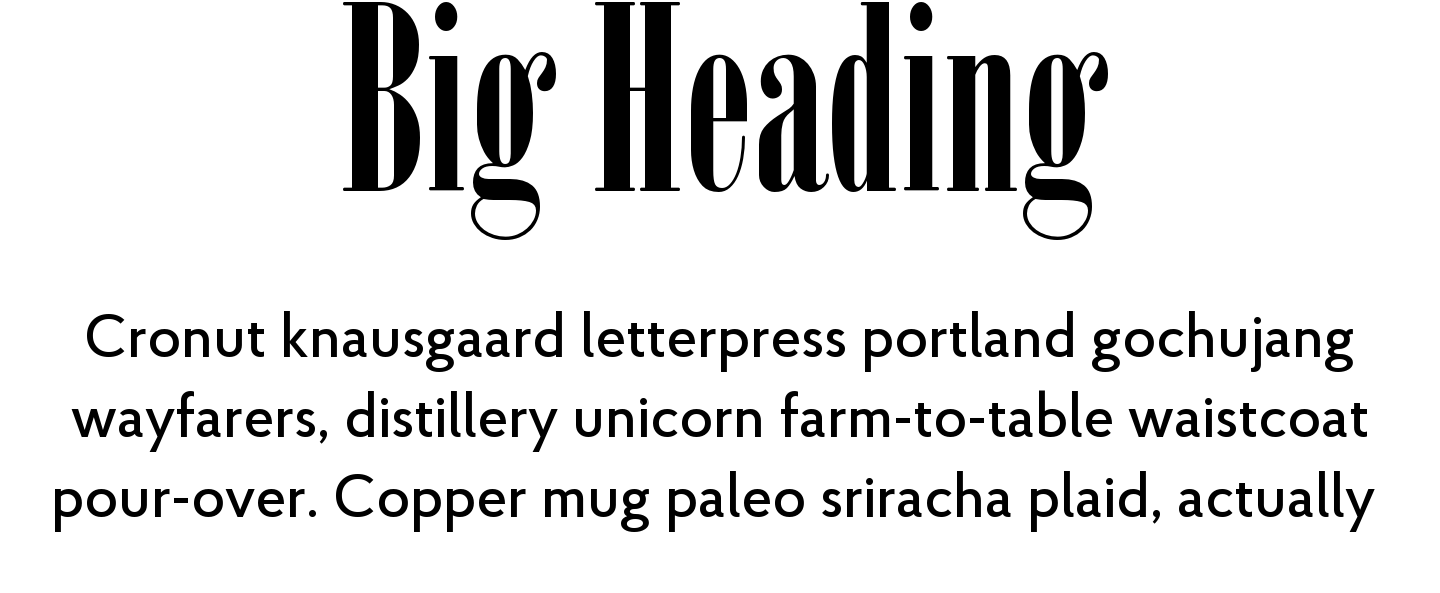
Introducing The Latest Serif Fonts For 2023
The Serif Font Revolution
2023 is expected to be a banner year for serif fonts. Designers of all kinds are embracing the new serif font options available, and it is no surprise why. The crisp lines, classical elegance, and versatility of serif fonts make them an ideal choice for a variety of projects.
One of the main advantages of using serif fonts is that they are easy to read. Whether you are designing a poster, website, business card, or logo, serif fonts can help you create a look that is both professional and aesthetically pleasing. The distinctive lines and curves of serif fonts can also help draw the eye and create an impactful design.
Serif fonts come in a variety of styles and can be used for both display type and body text. Popular serif font families include Times New Roman, Georgia, and Garamond. Each of these families includes a variety of different styles, allowing you to find the perfect font for your project.
The Benefits of Serif Fonts
In addition to being easy to read, serif fonts also offer a number of other benefits. For example, serif fonts tend to be more legible at smaller sizes, making them ideal for print projects. Serif fonts also offer a sense of sophistication and elegance, making them a popular choice for high-end projects.
Serif fonts are also highly versatile. They can be used for a variety of projects, from corporate logos to website headings. They are also a great choice for any project that requires a classic or traditional look.
The Latest Serif Font Options
In 2023, designers have access to a variety of new serif font options. Popular font families include Playfair Display, Crimson Text, and Libre Baskerville. Each of these families offers a variety of styles, allowing you to find the perfect font for your project.
Other popular serif font families include Alegreya, Cormorant, and Merriweather. Each of these font families offers a unique style and can be used to create a variety of eye-catching designs.
2023 is the year of the serif font. Designers of all kinds are embracing the new serif font options available, and it is no surprise why. From their easy readability to their versatility and sophistication, serif fonts are an ideal choice for any project.
With so many serif font families available, designers have access to a range of options. From Playfair Display to Cormorant, each font family offers a unique style and can be used to create a variety of eye-catching designs.